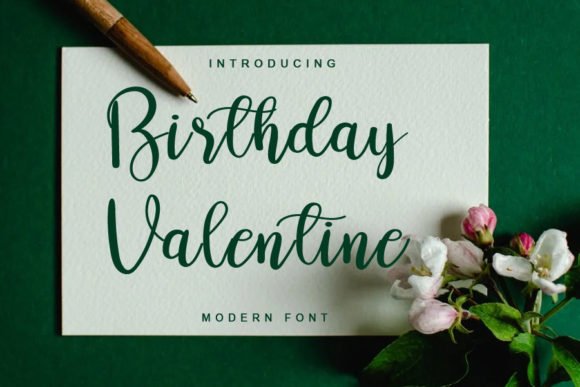
Unleash the Romance and Whimsy with the Birthday Valentine Font
Have you ever found yourself pouring over a blank page, searching for the perfect font to convey the magic of a special day? Maybe it’s a wedding invitation, a love letter, or a birthday card for a dear friend. Whatever the occasion, the right font can make all the difference in setting the tone and evoking the emotions you want to convey.
Enter the Birthday Valentine Font, a chic and stylish script font that’s as versatile as it is charming. With its original look and feel, this font is perfect for a wide range of creative projects, from elegant stationery to playful party invitations. As a designer, you’ll appreciate the unique flair it adds to your designs, making it a valuable addition to your font collection.
Birthday Valentine Font Key Features
- Font Style: A playful, cursive script font with a romantic touch, perfect for Valentine’s Day and birthday celebrations.
- Font Size: Available in 6 font sizes, ranging from 12 to 72 points, allowing for flexibility in design applications.
- Resolution: Designed to be high-resolution, making it suitable for print and digital use, including high-definition displays.
- Unique Characteristics: Features swashes and flourishes, adding a touch of elegance and whimsy to any design project.
- Character Set: Includes a wide range of characters, including uppercase and lowercase letters, numbers, and punctuation marks.
Designer Review: Birthday Valentine Font
Overall, I think the Birthday Valentine Font has some lovely qualities, but also some areas for improvement. Here are my thoughts:
- The font’s playful, handwritten feel makes it perfect for creating a fun and celebratory atmosphere.
- The font’s varying line widths and flourishes add a nice touch of whimsy and personality.
- The font is highly legible, even at small sizes, making it a great choice for digital designs.
- The font’s inconsistent letter spacing can make it look a bit sloppy or uneven at times.
- The font may not be suitable for formal or professional designs, due to its playful and casual nature.
- The font’s limited character set may make it difficult to use for complex or technical content.
Overall, I think the Birthday Valentine Font is a fun and creative choice for designers looking to add a touch of personality to their designs. While it may not be suitable for every project, it’s a great option for social media graphics, party invitations, and other celebratory designs.
The Birthday Valentine Font is ideal for creating romantic and festive designs, such as:
Valentine’s Day cards and invitations
Birthday party decorations and invitations
Romantic get-well cards and messages
Remember to experiment with different font sizes, colors, and styles to get the most out of the Birthday Valentine Font.
Alternatives to Birthday Valentine Font
Great Vibes is a modern, elegant script font that is perfect for creating a romantic and whimsical atmosphere. It is ideal for Valentine’s Day and birthday invitations, as well as other special occasion designs.
Compared to Birthday Valentine Font, Great Vibes has a more refined and sophisticated look, making it suitable for high-end designs and commercial projects.
Carolyna Pro is a beautiful, hand-drawn script font that is perfect for creating a soft and feminine look. It is ideal for birthday and Valentine’s Day invitations, as well as other designs that require a touch of elegance and sophistication.
Compared to Birthday Valentine Font, Carolyna Pro has a more delicate and intricate design, making it suitable for designs that require a high level of detail and craftsmanship.
Alex Brush is a beautiful, hand-drawn script font that is perfect for creating a romantic and elegant atmosphere. It is ideal for Valentine’s Day and birthday invitations, as well as other special occasion designs.
Compared to Birthday Valentine Font, Alex Brush has a more classic and timeless look, making it suitable for designs that require a sense of tradition and nostalgia.
Marcellus SC Font
Marcellus SC is a beautiful, elegant script font that is perfect for creating a sophisticated and refined atmosphere. It is ideal for birthday and Valentine’s Day invitations, as well as other designs that require a touch of luxury and glamour.